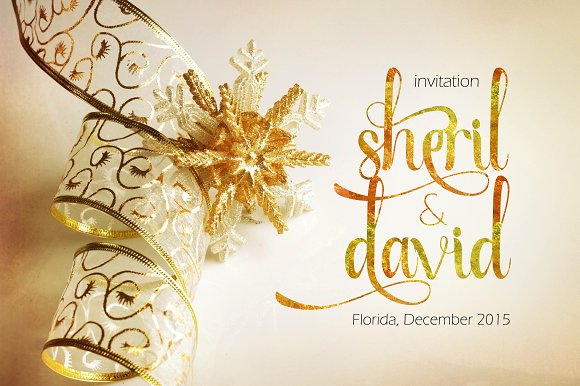
Enter Beauty Atok Font, a beautiful handwritten script that adds a touch of elegance and sophistication to any project. Whether you’re working on a marketing campaign or a craft project, this fluid font is sure to impress. Its professional look makes it perfect for branding and marketing materials, while its ease of readability makes it a joy to work with.
- Font Family: Beauty Atok, Beauty Atok Regular, Beauty Atok Bold, Beauty Atok Italic, Beauty Atok Bold Italic
- Language Support: Supports multiple languages including Latin, Cyrillic, Greek, and more
- Unique Characteristics: Unique script-like design with elegant and flowing strokes, making it suitable for creative and artistic projects
Designer Review: Beauty Atok Font
As a designer, I’ve had the chance to work with a variety of fonts, and my experience with Beauty Atok has been quite interesting. ✨ One of the things I appreciate about this font is its unique and elegant script style. The flowing curves and subtle flair make it perfect for creating a sophisticated and luxurious feel in branding and packaging.
Another great aspect of Beauty Atok is its versatility. It comes in multiple weights, from light to bold, making it easy to adjust to different design needs. This flexibility is especially useful when working with complex layouts or when trying to achieve a specific visual hierarchy.
- ⚠️ Limited language support: Unfortunately, Beauty Atok doesn’t cover a wide range of languages, which can be a major limitation for designers working on global projects.
- ⚠️ Not ideal for small text: While the font looks stunning at larger sizes, it can become difficult to read at smaller sizes, making it less suitable for body text.
Overall, Beauty Atok is a beautiful font that shines in specific contexts. While it may not be the most practical choice for every project, it’s certainly worth considering for high-end designs where its unique aesthetic can really make an impact.
The Beauty Atok Font is ideal for:
- Beauty and wellness packaging
- Travel and hospitality marketing
For optimal results, use the Beauty Atok Font in combination with:
- Soft, pastel color schemes
- Watercolor or hand
Alternatives to Beauty Atok Font
Great Vibes Font is a beautiful, elegant script font suitable for various design projects, including logos, invitations, and titles. It has a similar flowing and cursive feel to Beauty Atok Font but with a more refined and sophisticated look. Great Vibes Font is ideal for designs that require a touch of luxury and sophistication.
Comparison to Beauty Atok Font: Great Vibes Font has a more polished and refined look compared to Beauty Atok Font, making it suitable for high-end designs.
Alex Brush Font is a hand-painted script font that adds a personal and artistic touch to designs. It’s perfect for creative projects such as wedding invitations, greeting cards, and titles. Alex Brush Font has a similar organic and handwritten feel to Beauty Atok Font but with a more delicate and intricate design.
Comparison to Beauty Atok Font: Alex Brush Font has a more delicate and intricate design compared to Beauty Atok Font, making it suitable for designs that require a touch of whimsy and personality.
Pacifico Font is a beautiful, elegant script font that’s perfect for designs that require a touch of sophistication and luxury. It’s ideal for titles, headings, and logos, and has a similar flowing and cursive feel to Beauty Atok Font. Pacifico Font is also highly legible, making it suitable for large-scale designs.